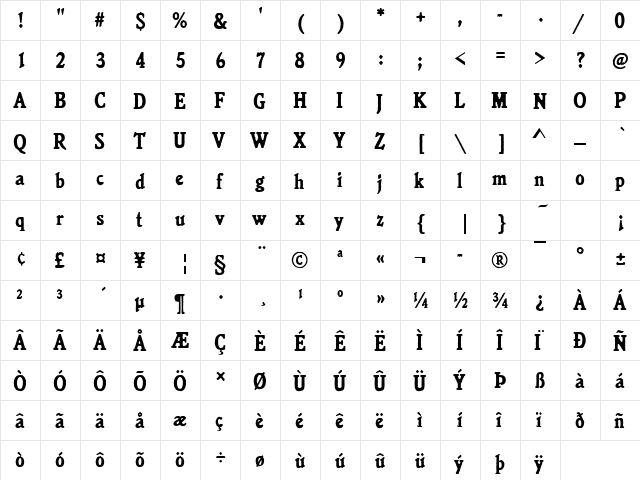
Jenson Becker Bold Cond Regular Font Preview
Design Context for Jenson Becker Bold Cond Typeface
Jenson Becker Bold Cond offers clean, dependable letterforms without strong stylistic allegiance, making it a practical choice for designers who need flexibility. Its bold stroke weight gives it real presence on the page. Its narrow stance lets it pack a punch even in space-constrained designs.